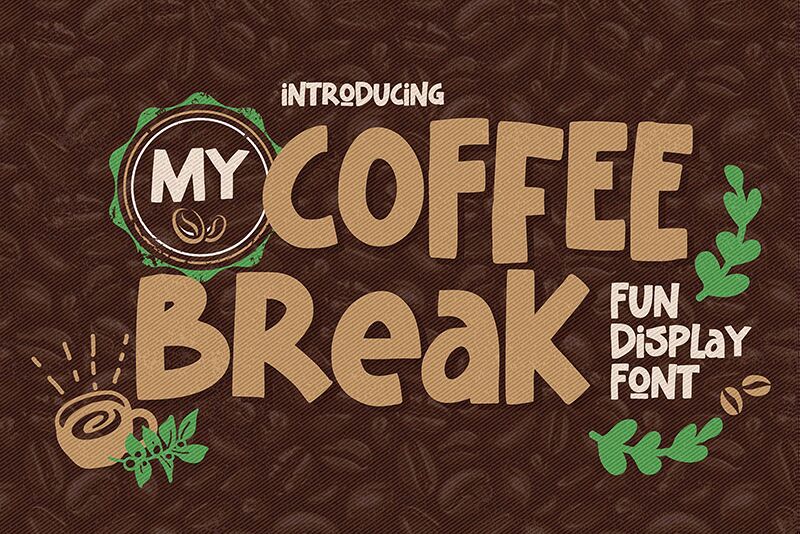
My Coffee Break by Gassstype is a bold display font with a playful cartoon style that instantly infuses any project with a sense of whimsy and modern flair. The dynamic movement within each character mimics the carefree doodles one might sketch during an idle moment, making it an ideal choice for creative endeavors seeking to add personality and a touch of the unconventional.
Crafted with dramatic flair, this font stands out for its textured strokes and authentic vibe, offering that handmade touch so sought after in contemporary design. Whether you're designing cool labels, eye-catching posters, or looking to give your branding a unique twist, My Coffee Break brings an approachable and spirited energy to the table.
Embrace the versatility of this font in various applications-from packaging to social media graphics. With support for ligatures and alternate glyphs available through OpenType features, My Coffee Break is not just a font; it's a gateway to endless creativity for designers looking to leave a lasting impression.